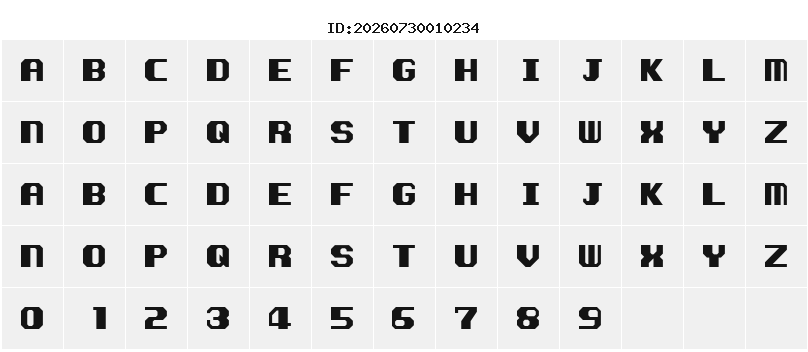
Kemco Smooth Preview
• Font Name: Kemco Smooth
• Font ID: Kemco Smooth Bold
• Full Font Name: Kemco Smooth Bold
• Version: v1 - 5/16/2012
• PostScript Name: KemcoSmoothBold
• Designer: Jayvee D. Enaguas (GrandChaos)
About Kemco Smooth.ttf
Kemco Smooth.ttf is a modern, elegant sans-serif font designed for ultimate readability and visual harmony. Perfect for branding, headlines, web design, and print materials.